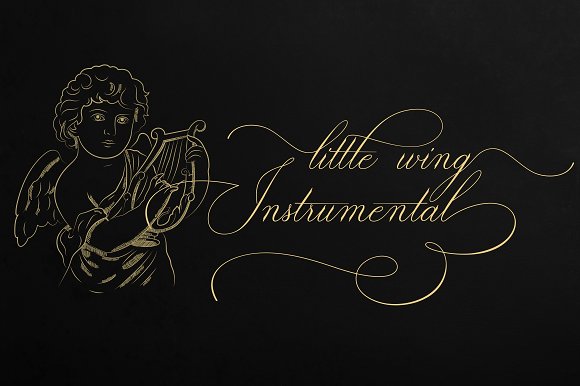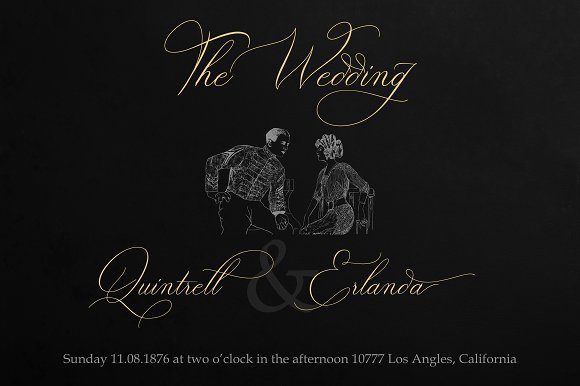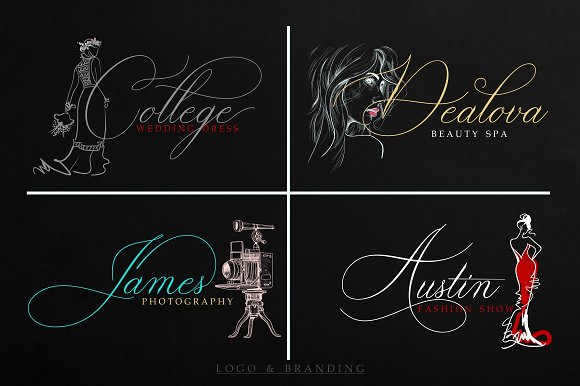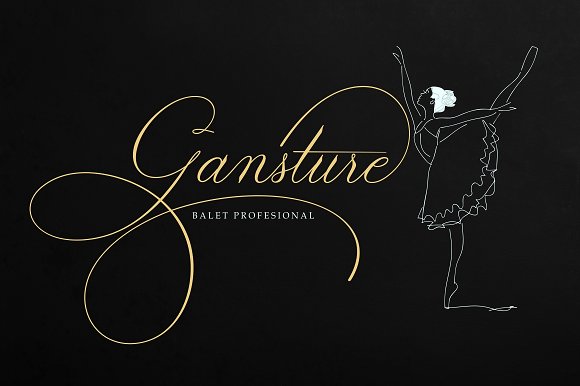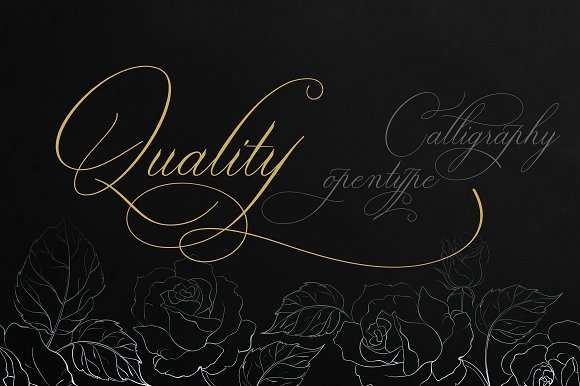
Introducing Bulgattie
Bulgattie is actually a unique font, I build it with the spontaneity of my relaxed hands. designing a formal font but having a classic element, which makes it particularly suitable for wedding media, book covers, greeting cards, logos, branding, business cards and certificates, in fact for any design work that requires a clasik, formal or luxury look.